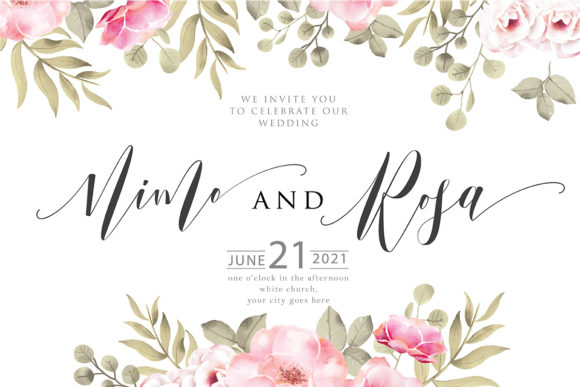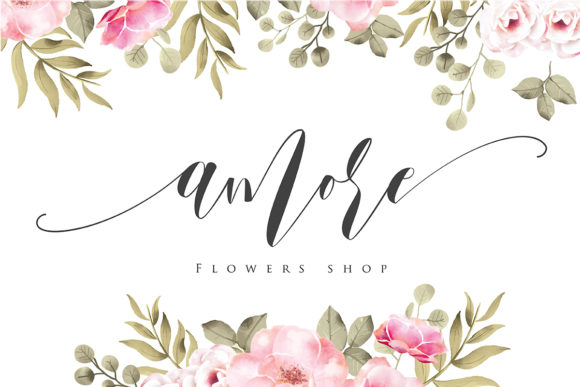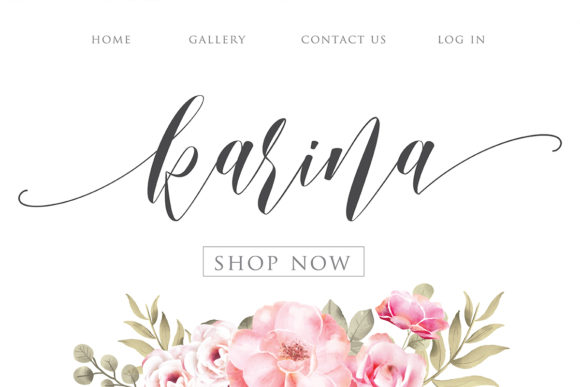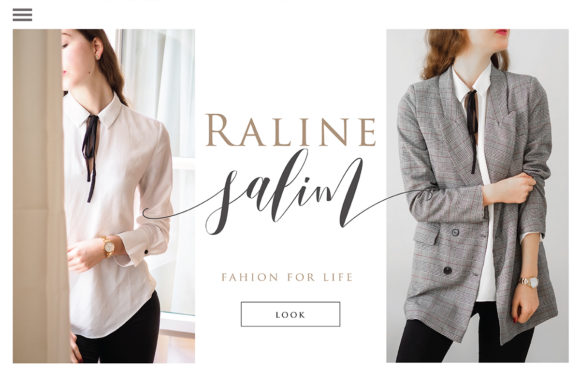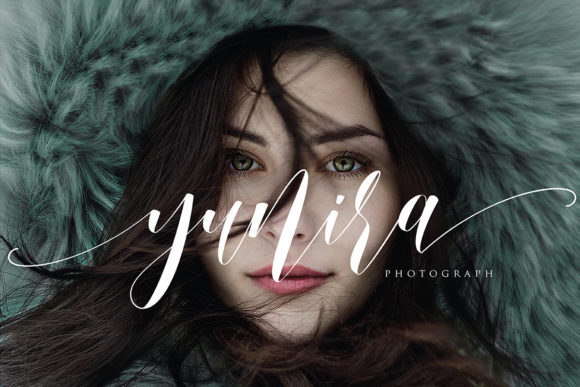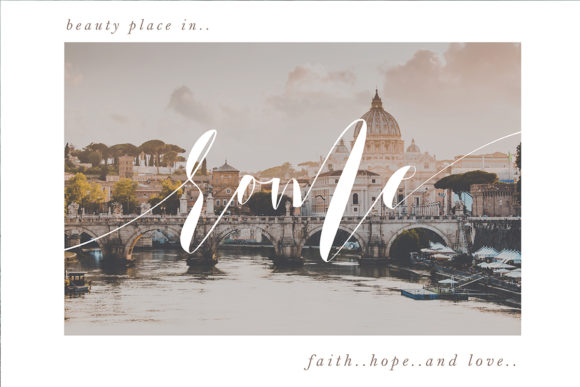
Introduction to Marisa Font
Have you ever found yourself scribbling down a beautiful handwritten note to a loved one, only to realize that the moment has passed, and the paper is all that remains? That’s exactly what inspired the creation of the Marisa Font – a stunning, flowing handwritten font that captures the essence of personal and emotional connections.
As designers, we’re always on the lookout for that special something to elevate our creative projects. Whether it’s a wedding invitation, a heartfelt thank you card, or a custom logo, the Marisa Font is a design resource that adds a touch of elegance and sophistication to any design. With its beautiful beginning and ending swash, this high-quality font is a game-changer for anyone looking to add a personal touch to their work.
Key Features of Marisa Font
- Available in a range of sizes, including small caps, uppercase, and lowercase characters
- Unique characteristics include elegant lines and subtle flourishes, perfect for adding a touch of sophistication to designs
Honest Review: Marisa Font
I recently stumbled upon the Marisa Font, and I must say it’s a fantastic addition to my design resource collection. This beautiful script font is perfect for creative projects that require a touch of elegance and sophistication. One of the standout features of Marisa Font is its high quality and smooth texture, making it ideal for printing or digital use.
- ✨ High-quality design with a smooth texture.
- ✨ Suitable for both printing and digital use.
- ✨ The font is highly versatile and can be used for a wide range of creative projects.
- ⚠️ The font only comes in a few weights, which may limit its use in complex design projects.
Overall, I’m impressed with the Marisa Font, and I would highly recommend it to designers looking for a high-quality script font. While it may have a few limitations, its beauty and versatility make it a valuable addition to any design resource collection.
To get the most out of the Marisa Font, use it in combination with other design elements that complement its elegant style. Experiment with different font sizes, colors, and arrangements to create visually appealing designs.
Common Use Cases for Marisa Font
The Marisa Font is ideal for a variety of creative projects, including wedding invitations, business cards, and brochures. Its elegant style makes it perfect for designs that require a touch of sophistication and refinement.